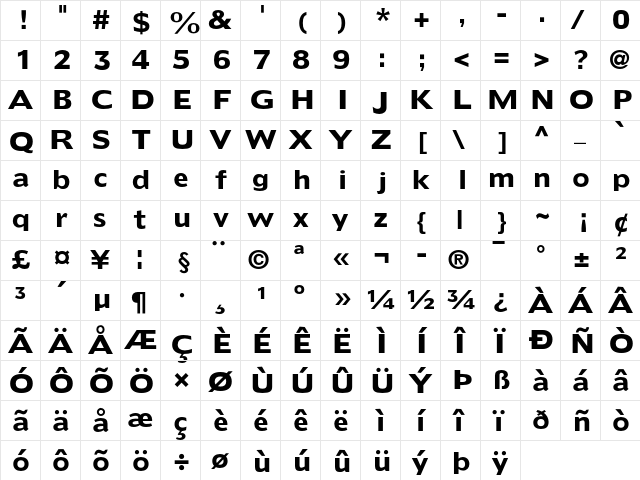
Doric Bold Font Preview
Doric Bold
Design Context for Doric Typeface
Doric takes a measured approach to typography — its balanced proportions and neutral character make it a reliable workhorse for both digital and print work. The heavy weight commands attention and anchors typographic hierarchies.